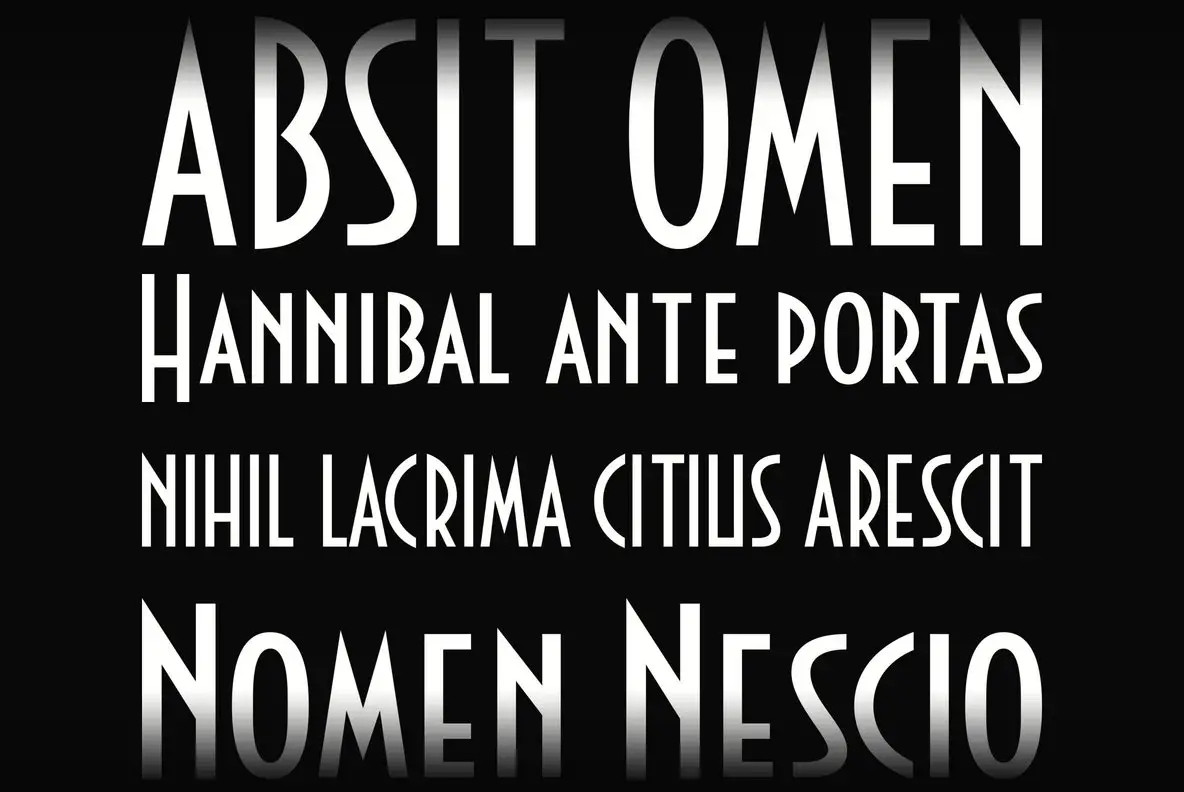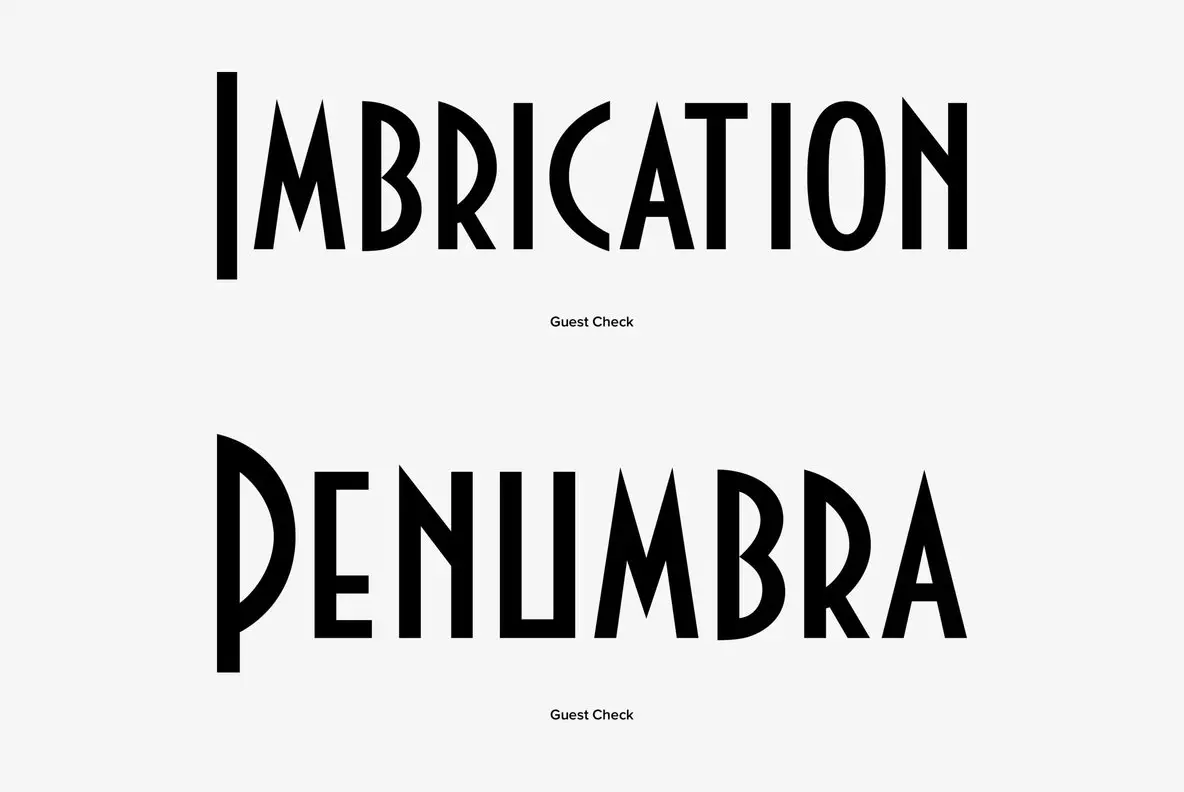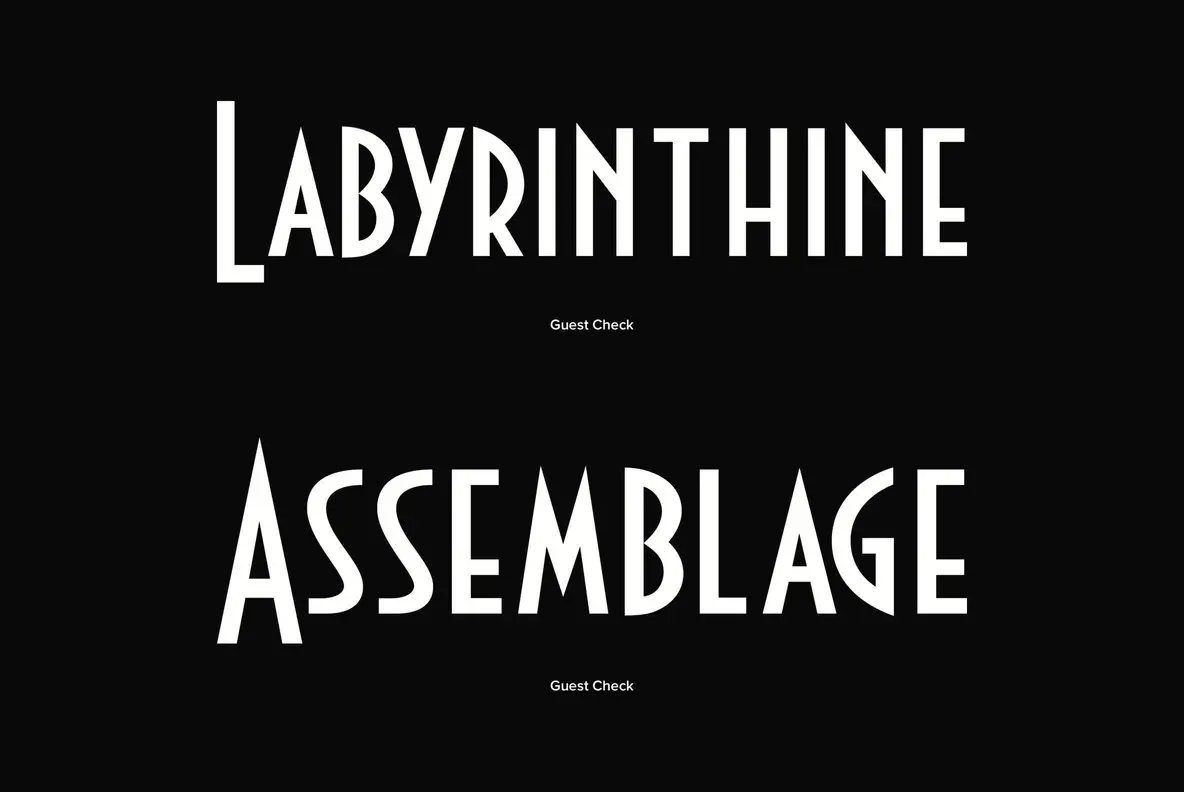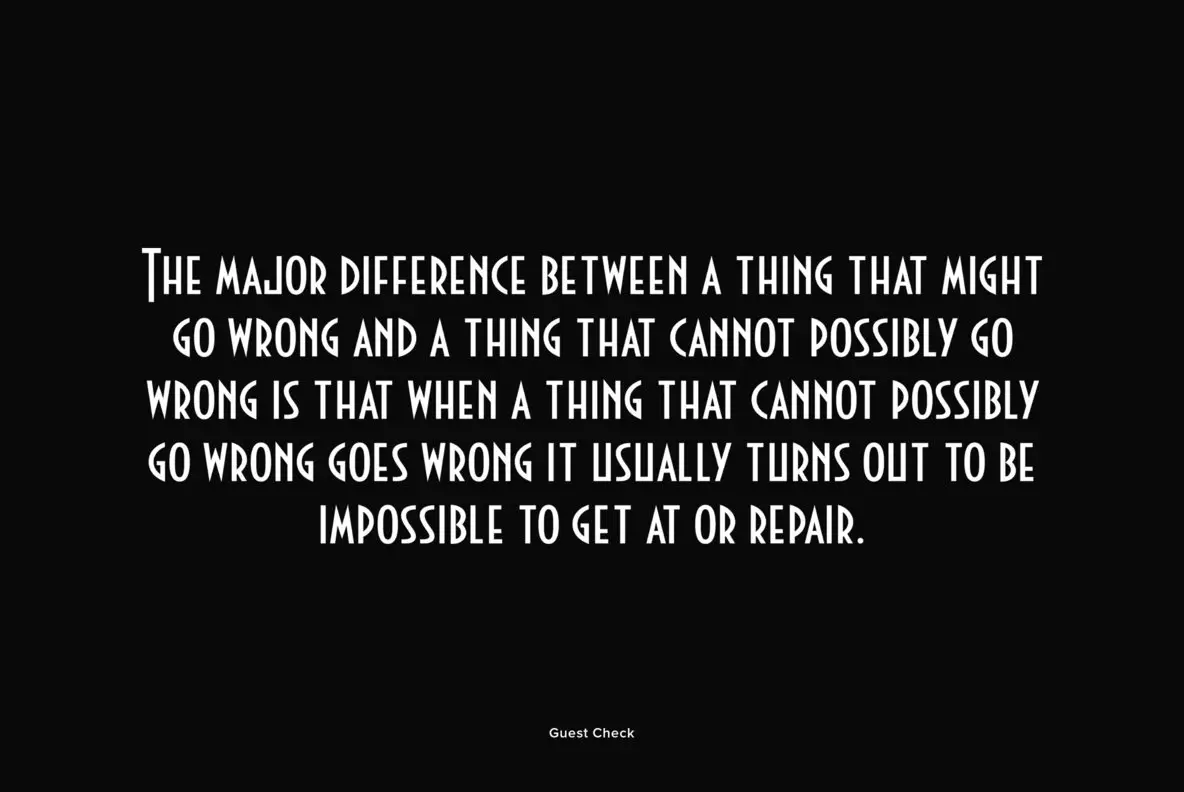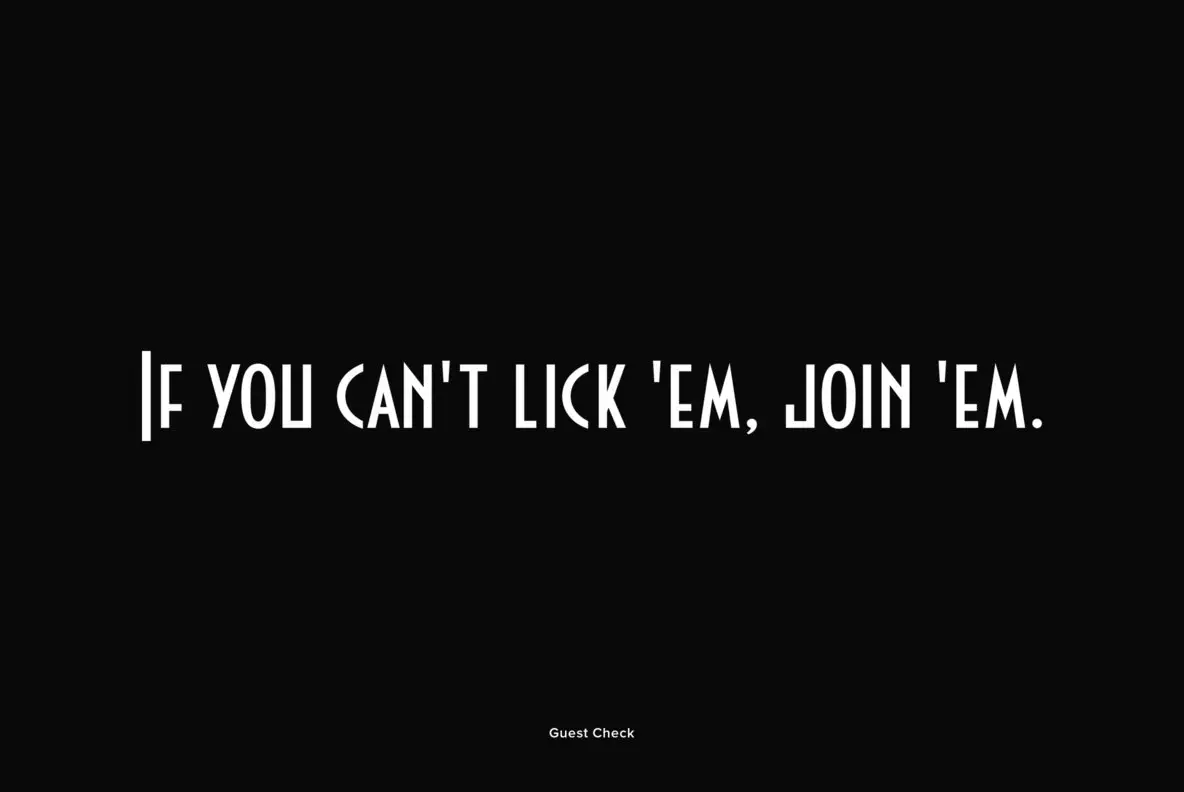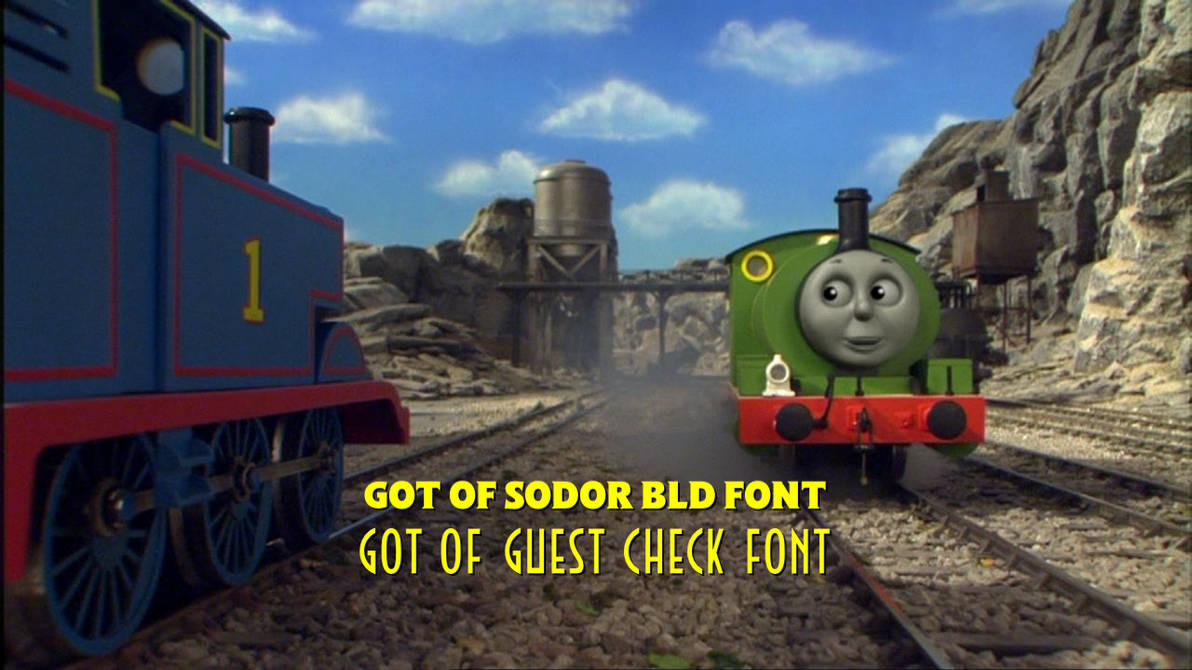
Guest Check Font Download . A great choice for highlighting your design elements. See how guest check regular looks. Download guest check ot font. The guest check font is a stylish and versatile typeface that exudes a classic and timeless aesthetic. Collection of fonts for guest check. Guest check font free download. With its clean lines and elegant. Guest check by stuart sandler: :) examples and download link for the guest check font designed by stuart sandler in 1998. Collection of fonts for guest check. Download—the font meta search engine with more than 50,000 font styles to find and order. Experience the guest check regular font on windows, mac, and linux with our instant preview feature.
A great choice for highlighting your design elements. With its clean lines and elegant. :) examples and download link for the guest check font designed by stuart sandler in 1998. Guest check by stuart sandler: The guest check font is a stylish and versatile typeface that exudes a classic and timeless aesthetic. Download—the font meta search engine with more than 50,000 font styles to find and order. Experience the guest check regular font on windows, mac, and linux with our instant preview feature. Download guest check ot font. Collection of fonts for guest check. Collection of fonts for guest check.
Guest Check Font Download A great choice for highlighting your design elements. Download guest check ot font. Guest check font free download. With its clean lines and elegant. Collection of fonts for guest check. Guest check by stuart sandler: See how guest check regular looks. A great choice for highlighting your design elements. Download—the font meta search engine with more than 50,000 font styles to find and order. Experience the guest check regular font on windows, mac, and linux with our instant preview feature. The guest check font is a stylish and versatile typeface that exudes a classic and timeless aesthetic. :) examples and download link for the guest check font designed by stuart sandler in 1998.
Guest Check Desktop Font & Font YouWorkForThem Guest Check Font Download guest check ot font. Collection of fonts for guest check. The guest check font is a stylish and versatile typeface that exudes a classic and timeless aesthetic. With its clean lines and elegant. Guest check by stuart sandler: Experience the guest check regular font on windows, mac, and linux with our instant preview feature. Download—the font meta search engine. Guest Check Font Download.
Guest Check Font YouWorkForThem Guest Check Font Download Guest check by stuart sandler: Experience the guest check regular font on windows, mac, and linux with our instant preview feature. With its clean lines and elegant. The guest check font is a stylish and versatile typeface that exudes a classic and timeless aesthetic. Download—the font meta search engine with more than 50,000 font styles to find and order. A. Guest Check Font Download.
Guest Check Font download free Guest Check Font Download The guest check font is a stylish and versatile typeface that exudes a classic and timeless aesthetic. Download—the font meta search engine with more than 50,000 font styles to find and order. Guest check font free download. Collection of fonts for guest check. :) examples and download link for the guest check font designed by stuart sandler in 1998. Collection. Guest Check Font Download.
How to customize font of a text field on bank check Guest Check Font Download Collection of fonts for guest check. Download—the font meta search engine with more than 50,000 font styles to find and order. See how guest check regular looks. Download guest check ot font. A great choice for highlighting your design elements. Experience the guest check regular font on windows, mac, and linux with our instant preview feature. The guest check font. Guest Check Font Download.